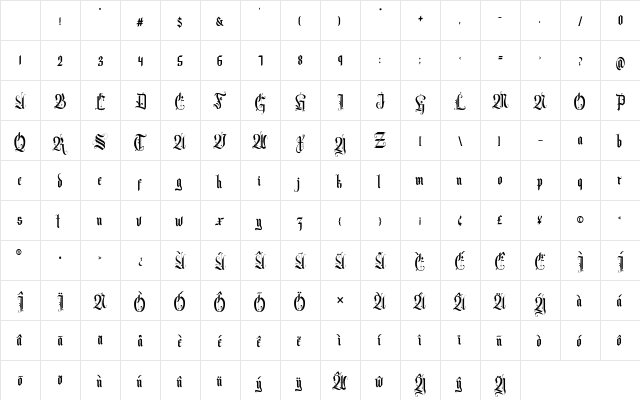
Volantis is a composed and adaptable typeface that performs quietly and consistently across a wide range of design contexts.
Pro Tip: Use Volantis in both headline and body roles to test its range before committing to a single application.